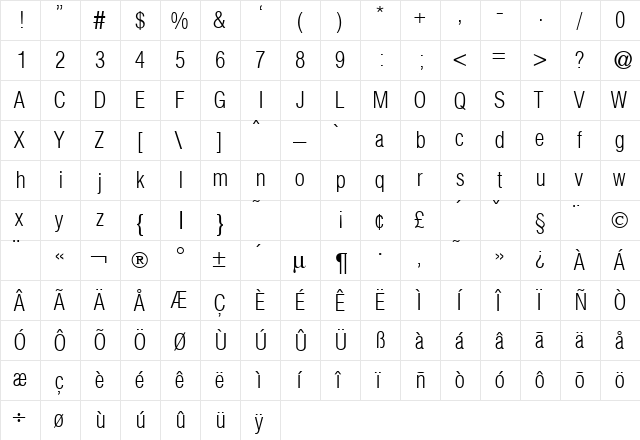
HelmetCondensed Normal
Design Context for HelmetCondensed Typeface
HelmetCondensed offers clean, dependable letterforms without strong stylistic allegiance, making it a practical choice for designers who need flexibility. Its narrow stance lets it pack a punch even in space-constrained designs.
Pro Tip: Use HelmetCondensed in both headline and body roles to test its range before committing to a single application.